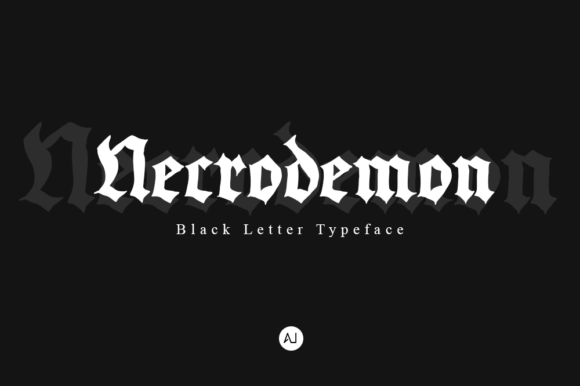
Introducing Necrodemon Font, the ultimate choice for those seeking to elevate their designs with an unparalleled touch of horror and mystery. Crafted by the talented alchemynoir, this blackletter typeface will set your creations apart, leaving a lasting impression on anyone who lays eyes upon them.
With its bold and captivating design, Necrodemon Font is a perfect fit for a wide range of applications. Whether you're looking to create a spine-chilling branding experience, design spine-tingling Halloween posters, or establish a sinister presence for your metal band logo or album cover, this font delivers every time.
But its uses don't end there. Necrodemon Font brings an evil and horror-inspired aesthetic to apparel, merchandise, stickers, and anything else that craves a touch of darkness. Let your imagination run wild as you explore the endless possibilities this font has to offer.
Immerse yourself in the world of Necrodemon Font and experience its power firsthand. Its unique blackletter style evokes a sense of ancient mystique, transporting your audience to a realm where shadows dance and secrets lurk. Get ready to captivate your viewers and leave them craving more.
Unleash your creativity and transform your designs into eerie masterpieces that command attention. Necrodemon Font empowers you to evoke emotions like fear, excitement, and curiosity, instantly drawing users into your world. Watch as your creations become the talk of the town, sparking conversations and igniting intrigue.
With Necrodemon Font, you hold the key to unlocking a world of creativity and imagination. Embrace the darkness and let this font guide you towards new and thrilling design possibilities. Don't settle for ordinary when you can embrace the extraordinary. Transform your vision into reality and leave a lasting impression with Necrodemon Font.